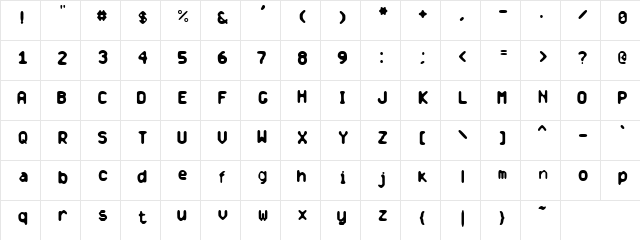
Banausia Regular Free Font
Banausia Regular
Foundry: Liquid Nite Productions, formerly Zogoz Design
Designer: Andrew Hungerford
Design Context for Banausia
Banausia is a composed and adaptable typeface that performs quietly and consistently across a wide range of design contexts.
Who designed the Banausia Regular font?
This font was published by Liquid Nite Productions, formerly Zogoz Design. Check the technical specs section for copyright and designer details.